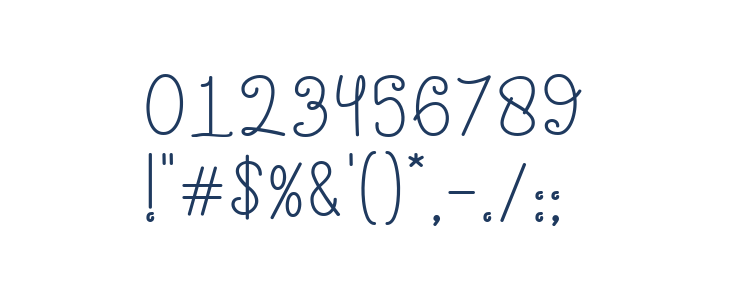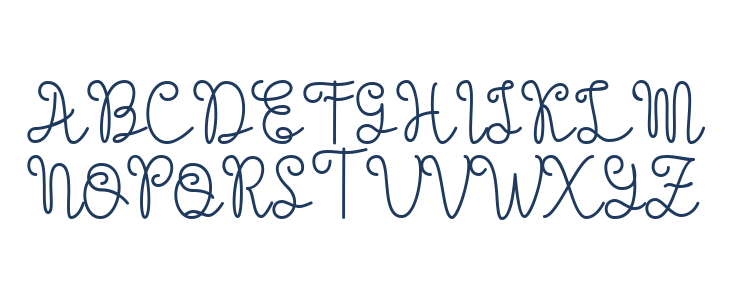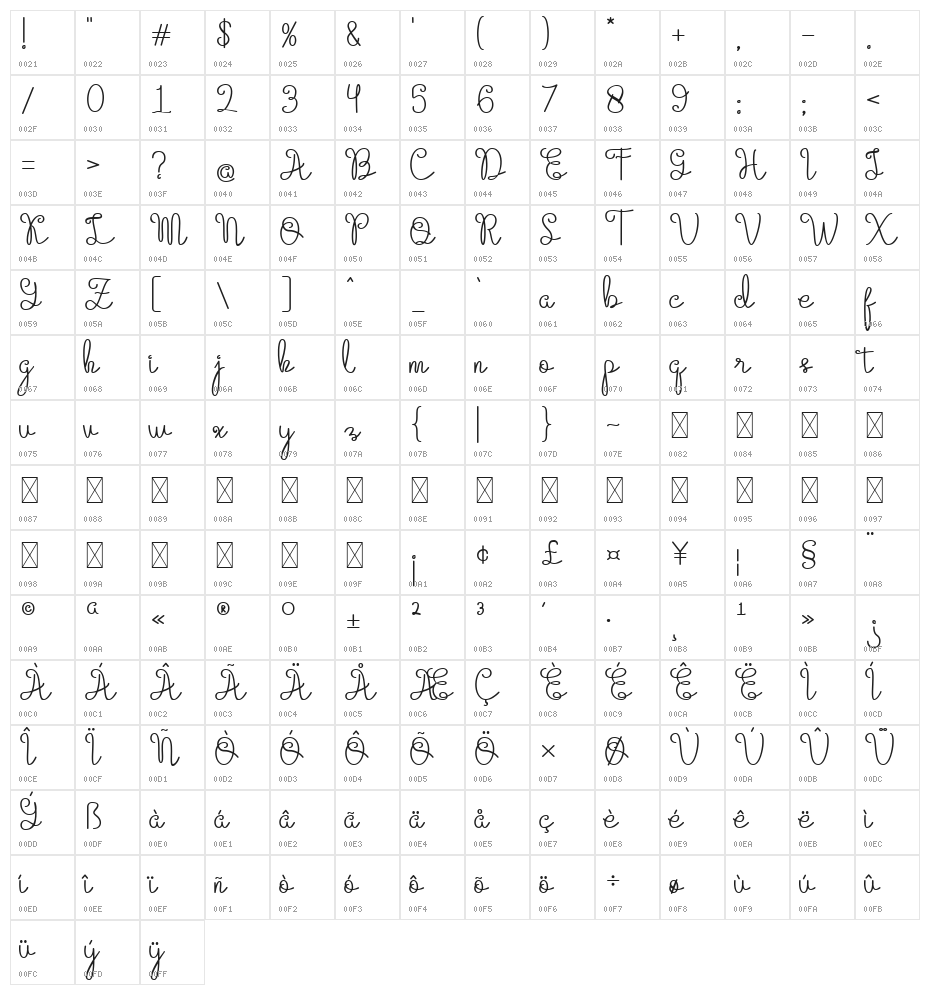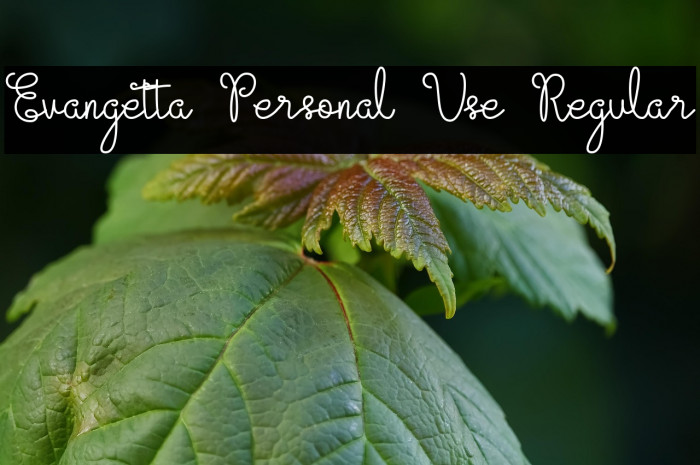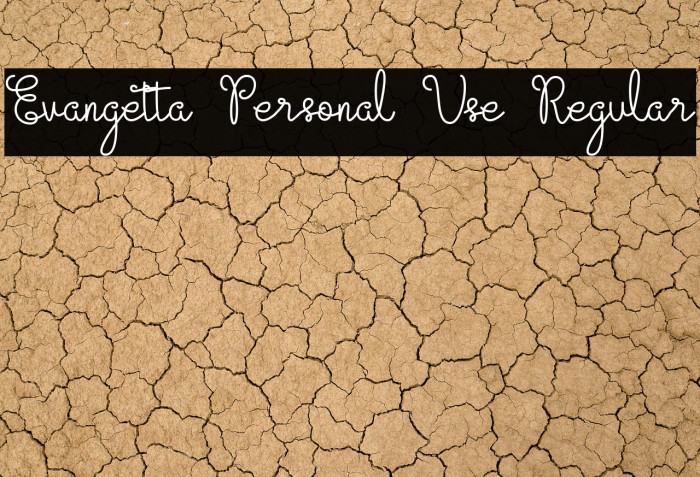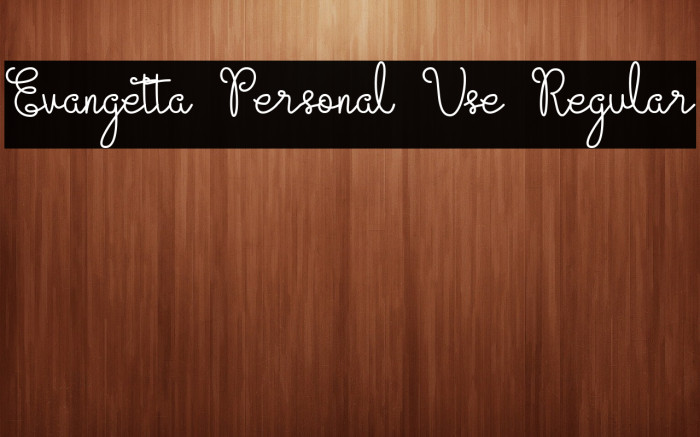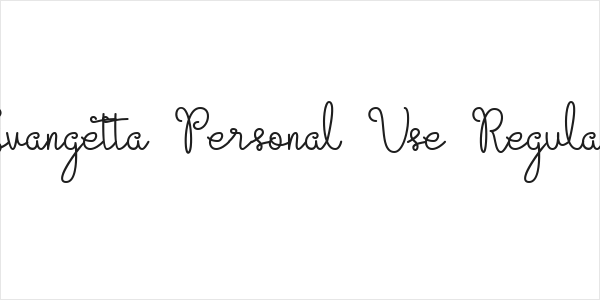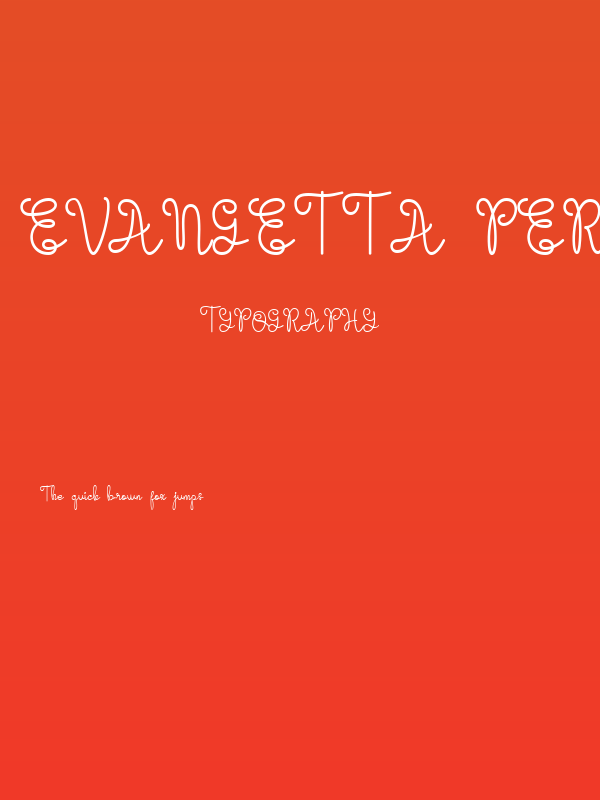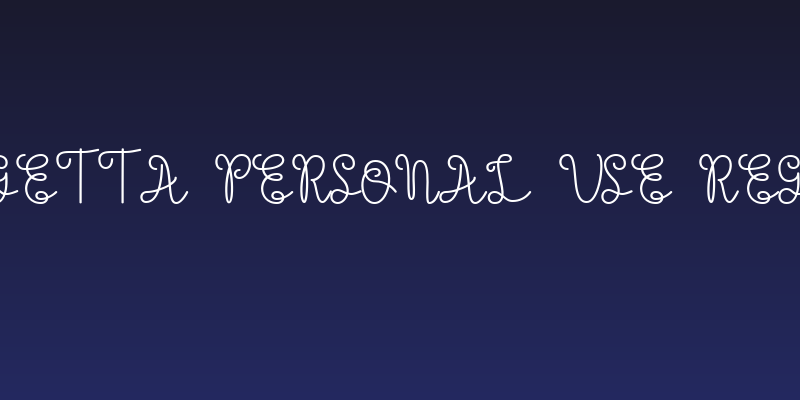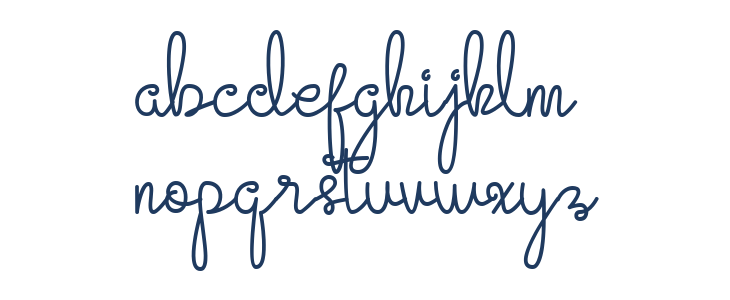
Evangetta Personal Use Regular Font
Evangetta Personal Use Regular Description
A playful, handwritten cursive font with a whimsical and casual style, featuring smooth, flowing lines and a slightly irregular stroke width.
| Overall Style | Casual, Playful, Handwritten |
| Use Case | Personal projects, Invitations, Greeting cards, Children's books |